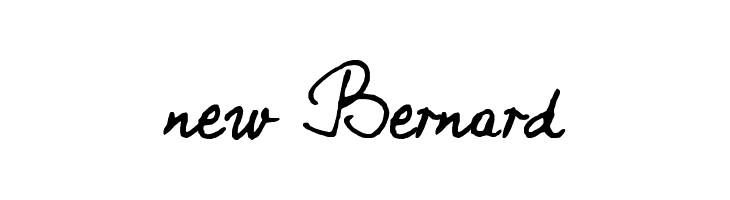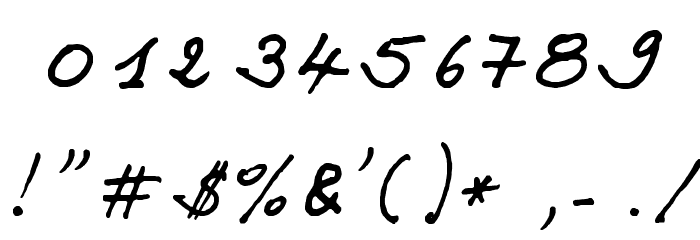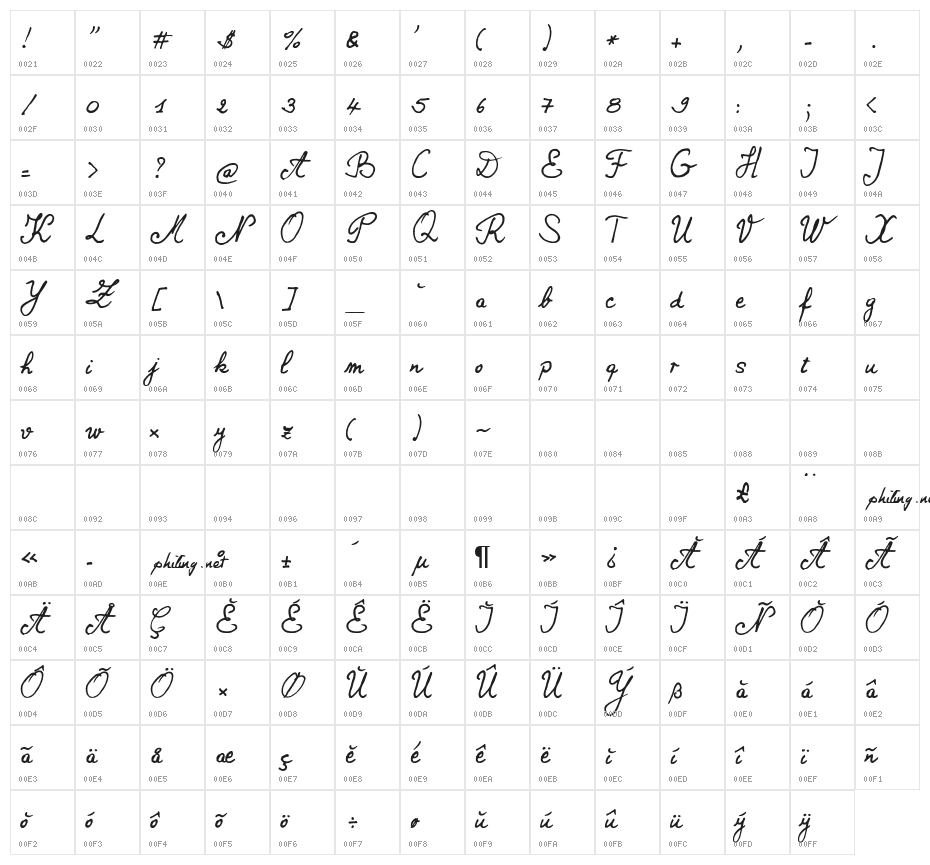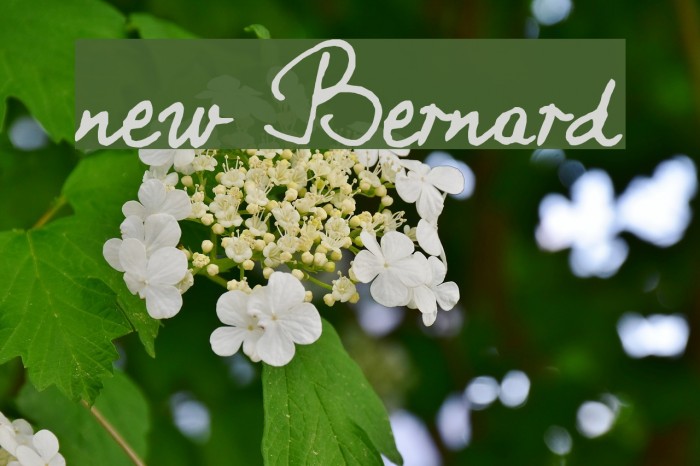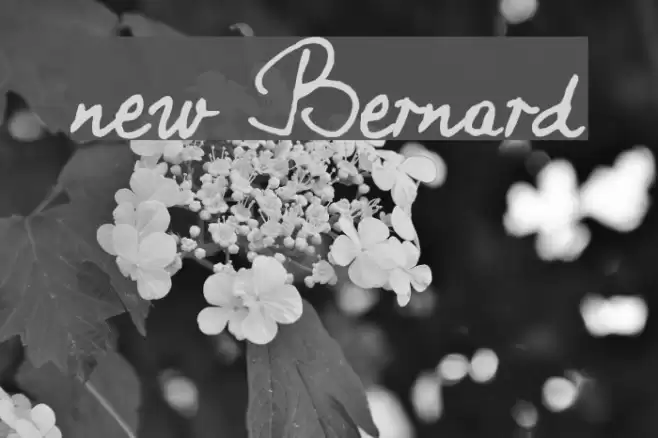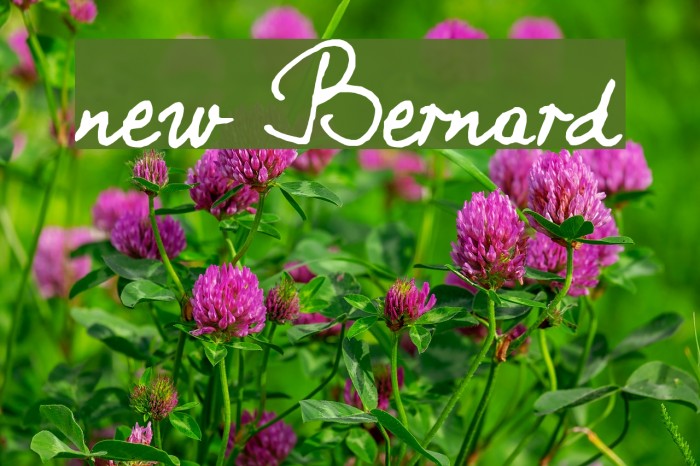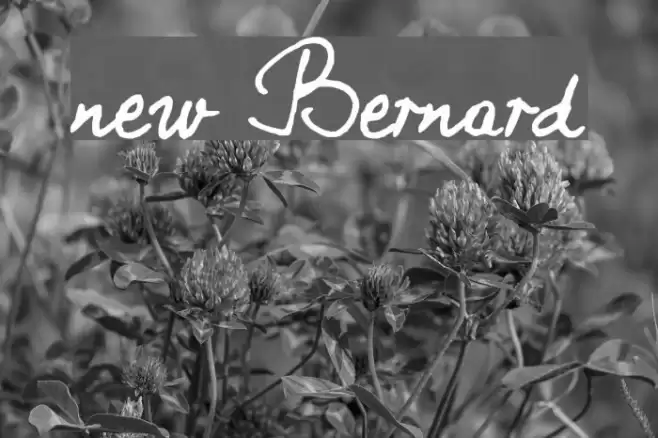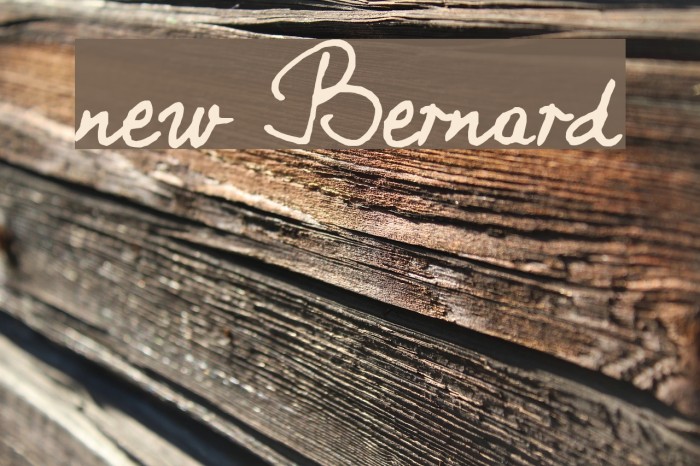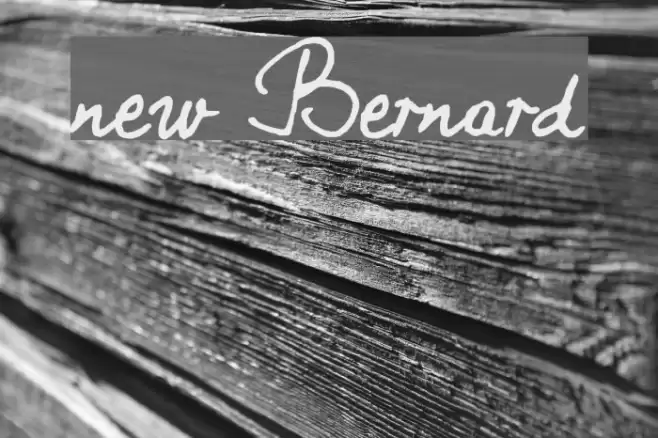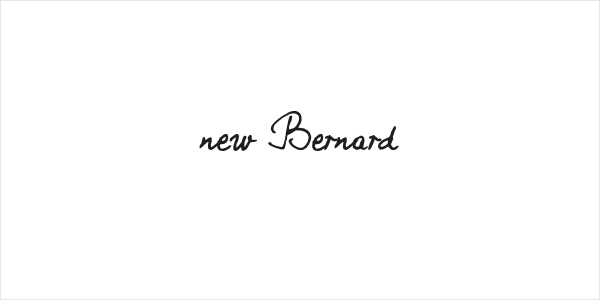
new Bernard Font
new Bernard Description
This font exhibits a flowing, cursive style that is both elegant and expressive. The characters are interconnected, creating a seamless and fluid appearance. The uppercase letters are slightly more ornate, with extended loops and flourishes, while the lowercase letters maintain a consistent rhythm and balance. The numerals are distinct yet harmonize well with the overall script style. Special characters are thoughtfully integrated, maintaining the font's cohesive aesthetic. This font captures a sense of sophistication and personal touch, making it suitable for creative and formal applications.